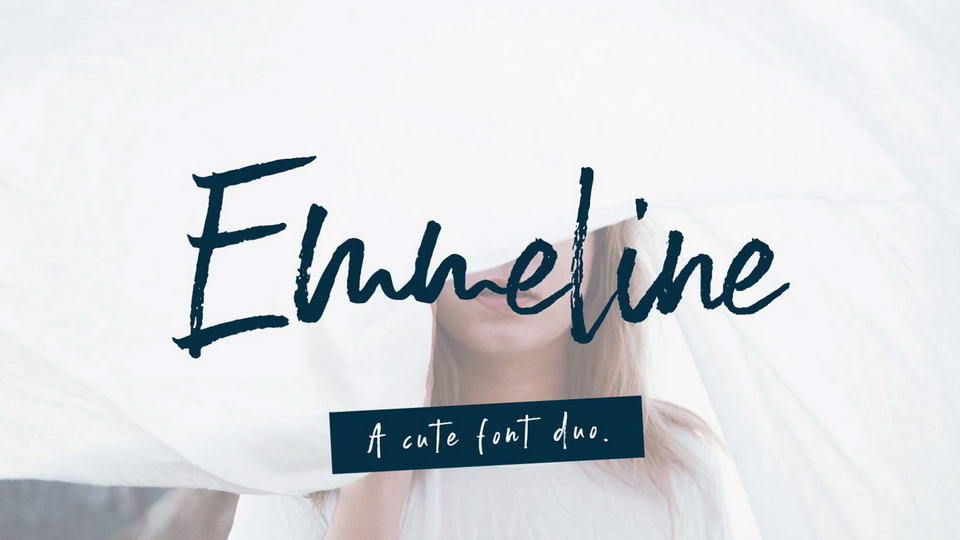
Emmeline Font
Emmeline - free handwritten rough brush font. It contains uppercase and lowercase letters, numbers, symbols and stylistic alternates, also includes webfont. This font perfect for signature style logos, labels, quotes, cards, invitations, social media and headlines and other creative designs.
• Name: Emmeline
• Author: Sinikka Li